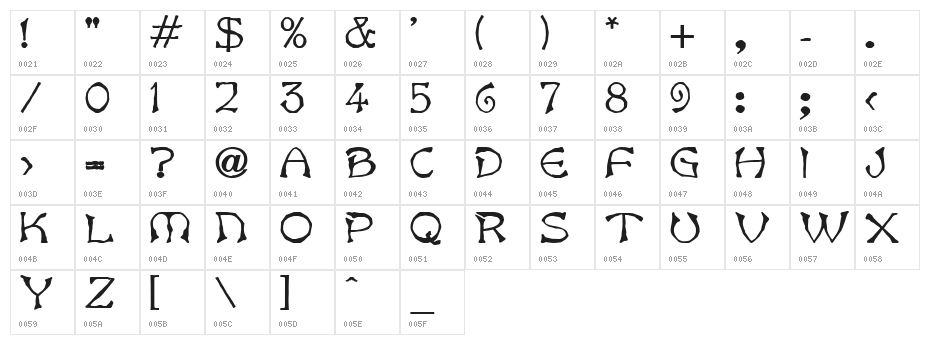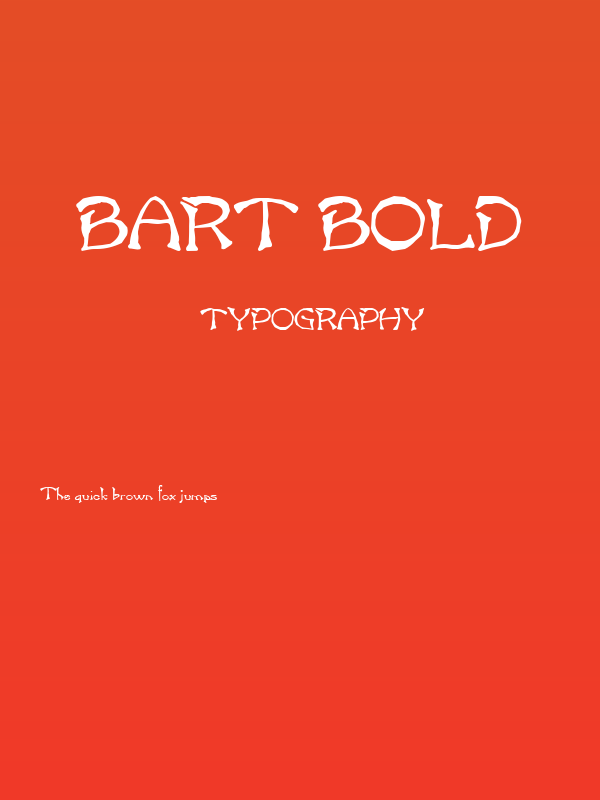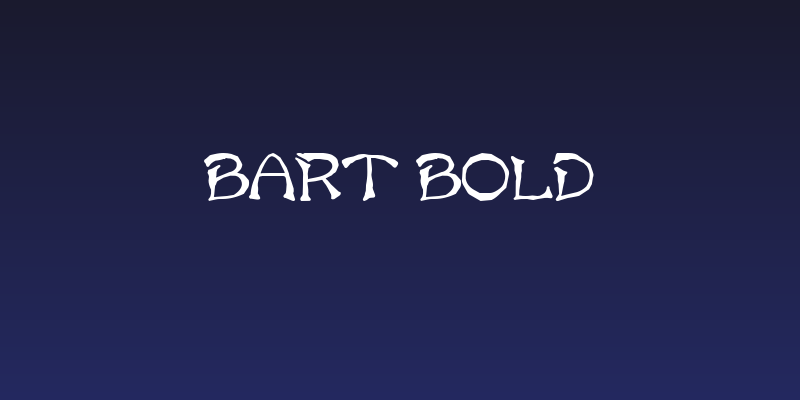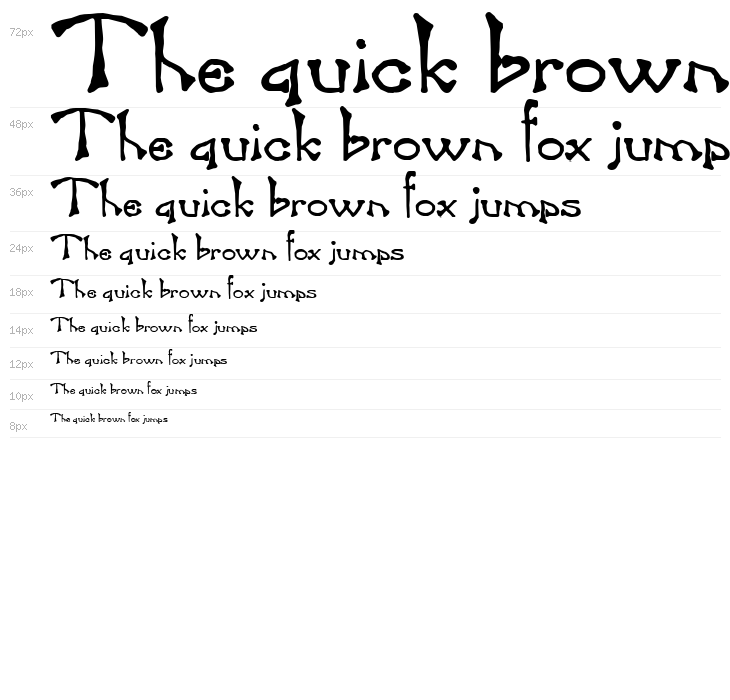
Bart Bold Font
Bart Bold Description
This font features a unique and playful design with irregular, hand-drawn strokes that give it a whimsical and artistic appearance. The characters have a slightly uneven baseline, adding to the casual and informal feel. The uppercase letters are bold and prominent, while the lowercase letters maintain a consistent style with quirky variations. The numerals and special characters follow the same playful theme, making this font ideal for creative projects. Its distinct style is reminiscent of graffiti or street art, with a touch of fantasy.
| Proposed Projects | Ideal for creative projects such as posters, album covers, children's books, and branding for artistic ventures. |